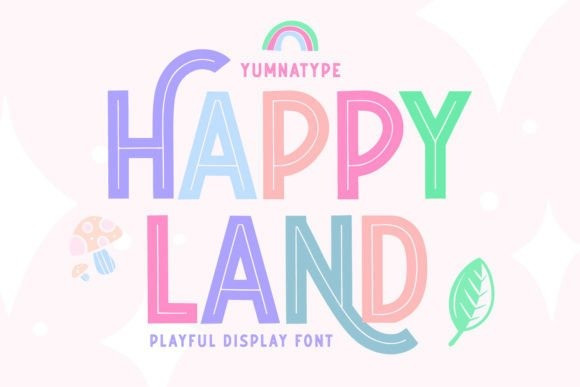
Happy Land Font
Happy Land Font is a prominent display font ready to add firm touches to any of your designs. The all-capital letter can enhance certain effects on your designs. The font’s simple shapes with strong contrasts affect the legibility. It can be a real challenge to deliver messages through designs due to the very ordinary display fonts lacking prominent characters.